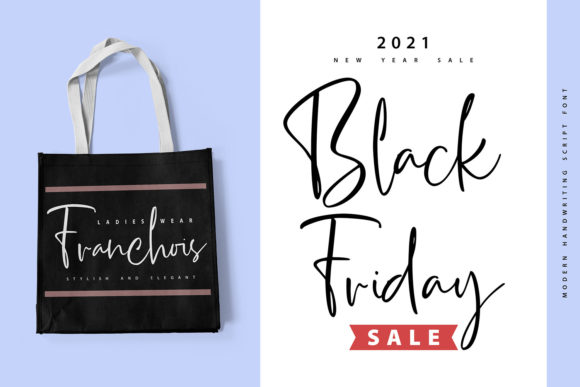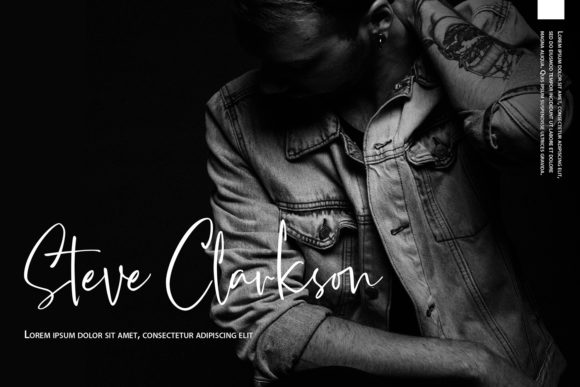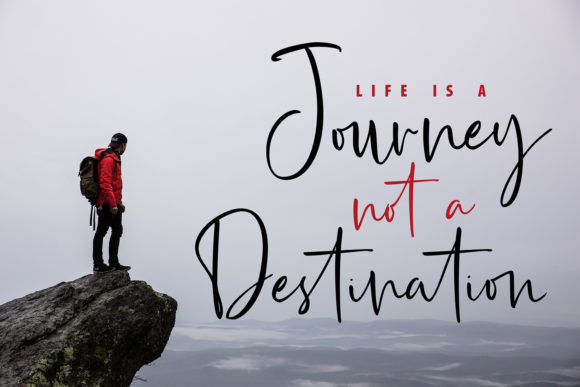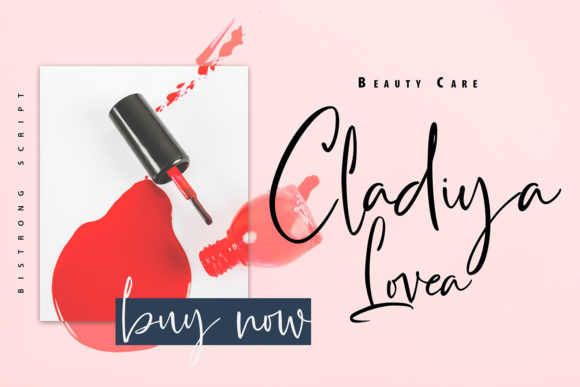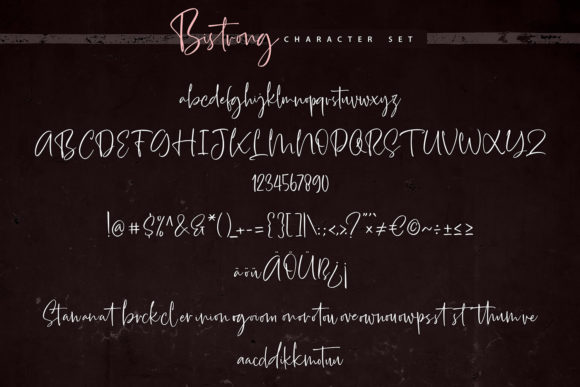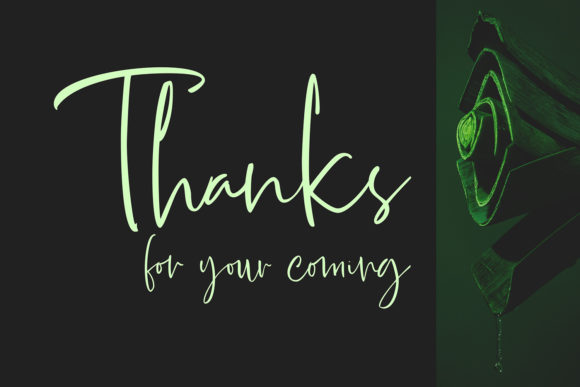
Bistrong Font
About Bistrong Font
Bistrong is a lovely brushed script font. This font is PUA encoded which means you can access all of the glyphs and swashes with ease!